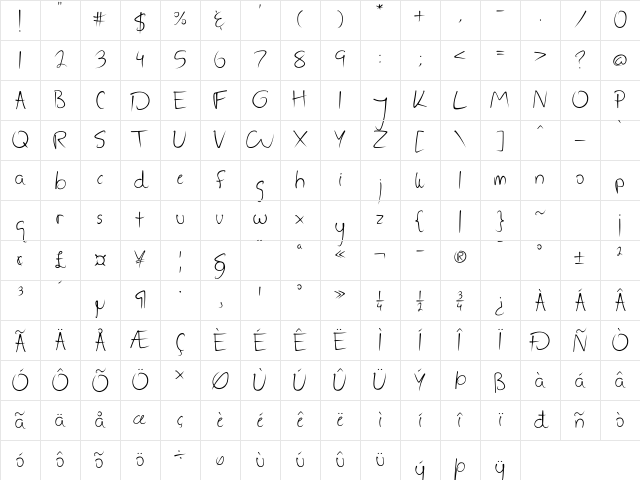
AFE Jen Medium Free Font
AFE Jen Medium
Design Context for AFE Jen
AFE Jen is a composed and adaptable typeface that performs quietly and consistently across a wide range of design contexts.